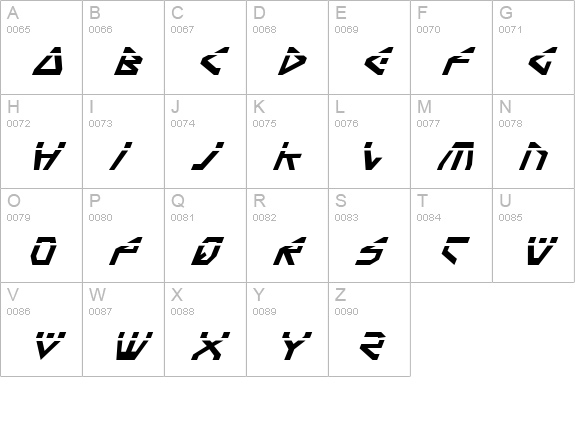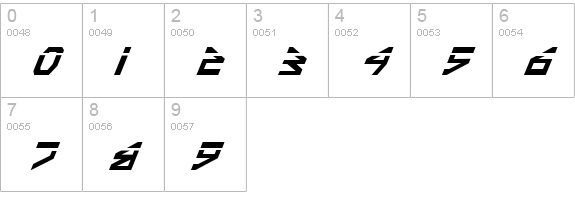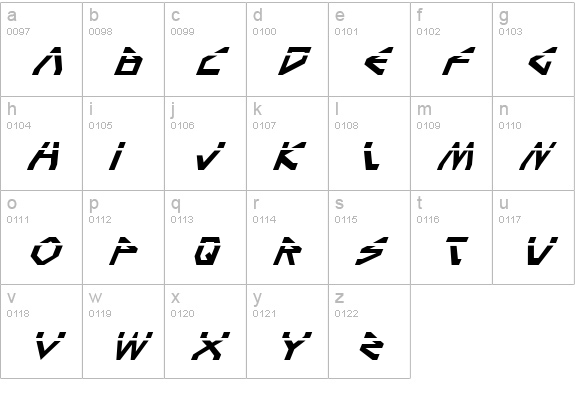
Terra Firma Laser Italic is a distinctive, italic variant in the Terra typeface family \xE2\x80\x94 well suited to design and typography projects.
Terra Firma Laser Italic font is a stunning display typeface that exudes elegance and sophistication. Its unique laser-cut design gives it a futuristic and modern feel, making it perfect for projects that require a touch of innovation. The sleek and slanted letterforms create a sense of movement, adding a dynamic element to any design. With its sharp edges and precise details, Terra Firma Laser Italic font demands attention and instantly captivates the viewer. Whether used for headlines, logos, or branding materials, this font effortlessly stands out and leaves a lasting impression. One of the best things about Terra Firma Laser Italic font is that it is freely available to download at FontsMarket.com. This means that designers and creatives can enjoy the benefits of this exceptional typeface without any cost. Its availability ensures that everyone has the opportunity to incorporate this eye-catching font into their projects, regardless of budget constraints. Terra Firma Laser Italic font is versatile and adaptable, making it suitable for a wide range of design applications. From print to digital, this font shines in various contexts, including advertisements, packaging, websites, and more. Its clean and sleek appearance enhances readability, ensuring that your message is delivered with clarity and precision. Whether you're working on a corporate presentation, a poster, or a website, Terra Firma Laser Italic font is a fantastic choice to elevate your design to new heights. Its contemporary and futuristic aesthetic, combined with its availability as a free download, makes it an invaluable asset for any designer looking to make a statement. Download Terra Firma Laser Italic font today from FontsMarket.com and unleash its captivating power in your next project.